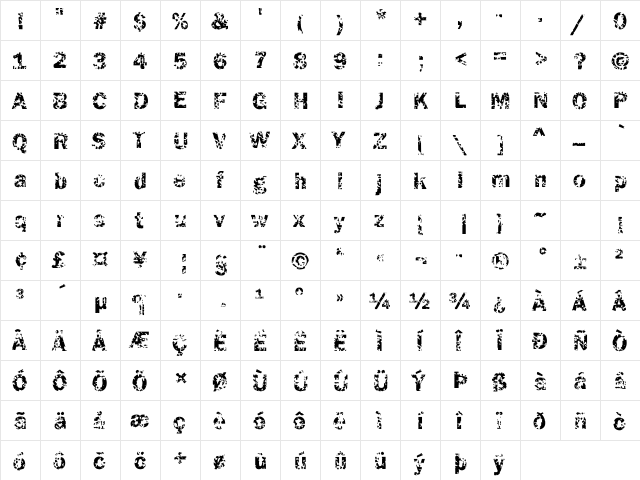
DTCFunkyM05 Regular
Design Context for DTCFunkyM05 Typeface
DTCFunkyM05 trades formality for fun, with bouncy, characterful letterforms that bring warmth and energy to any project.
Font Pairing: Pairs well with a rounded or humanist sans for body copy, maintaining the friendly tone without relying on DTCFunkyM05 to carry extended reading.
Pro Tip: Use DTCFunkyM05 at larger display sizes where its expressive character can land. Pair with a clean, simple sans for body copy to maintain readability.